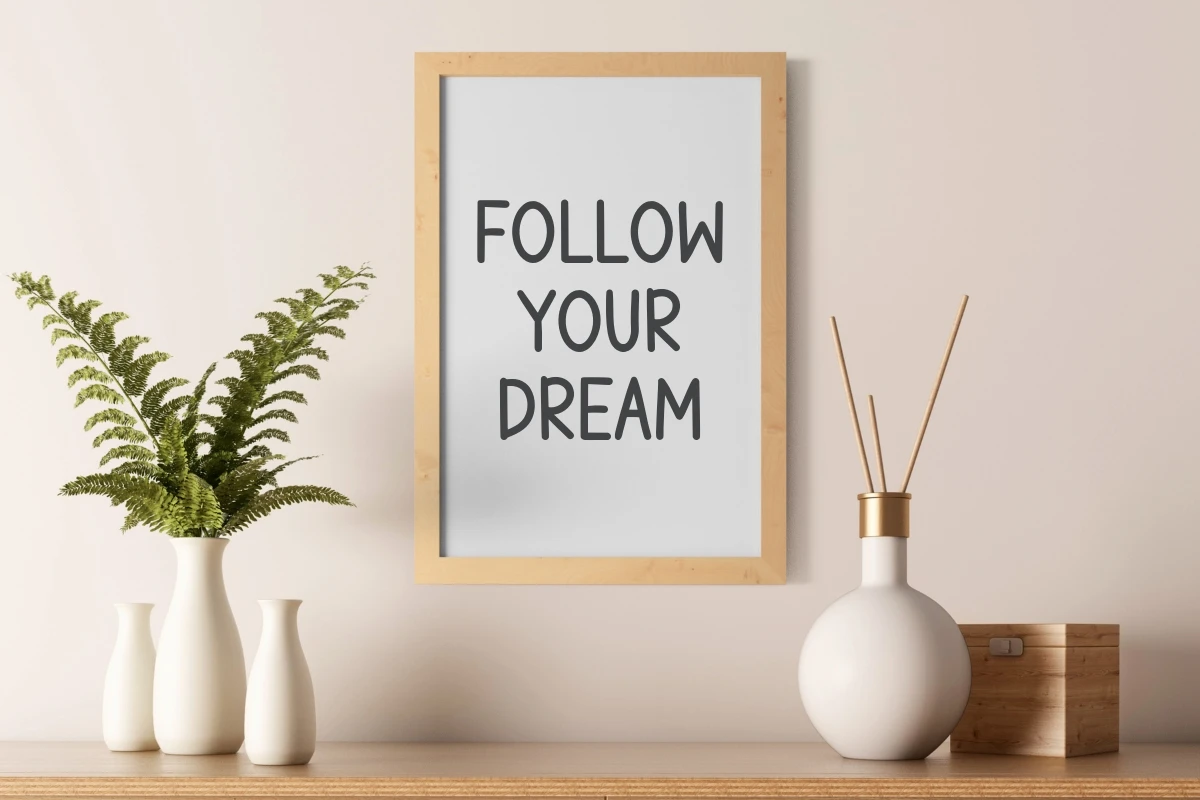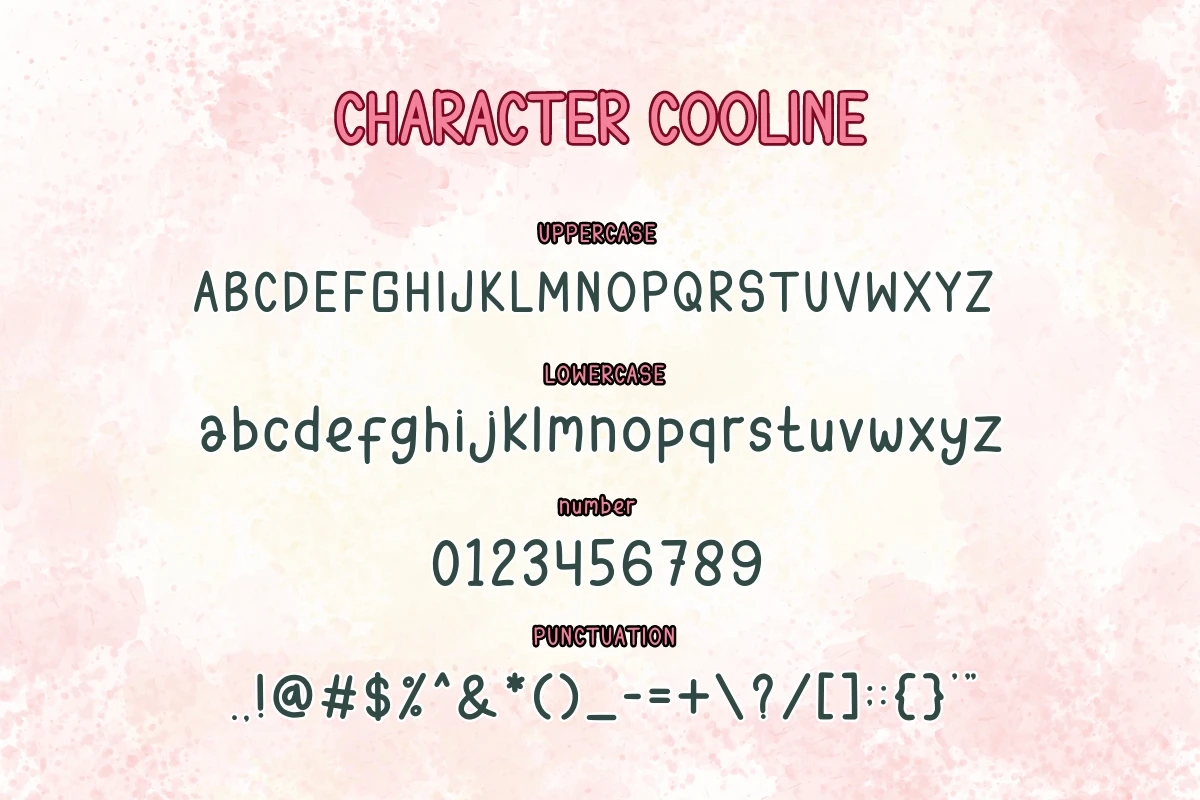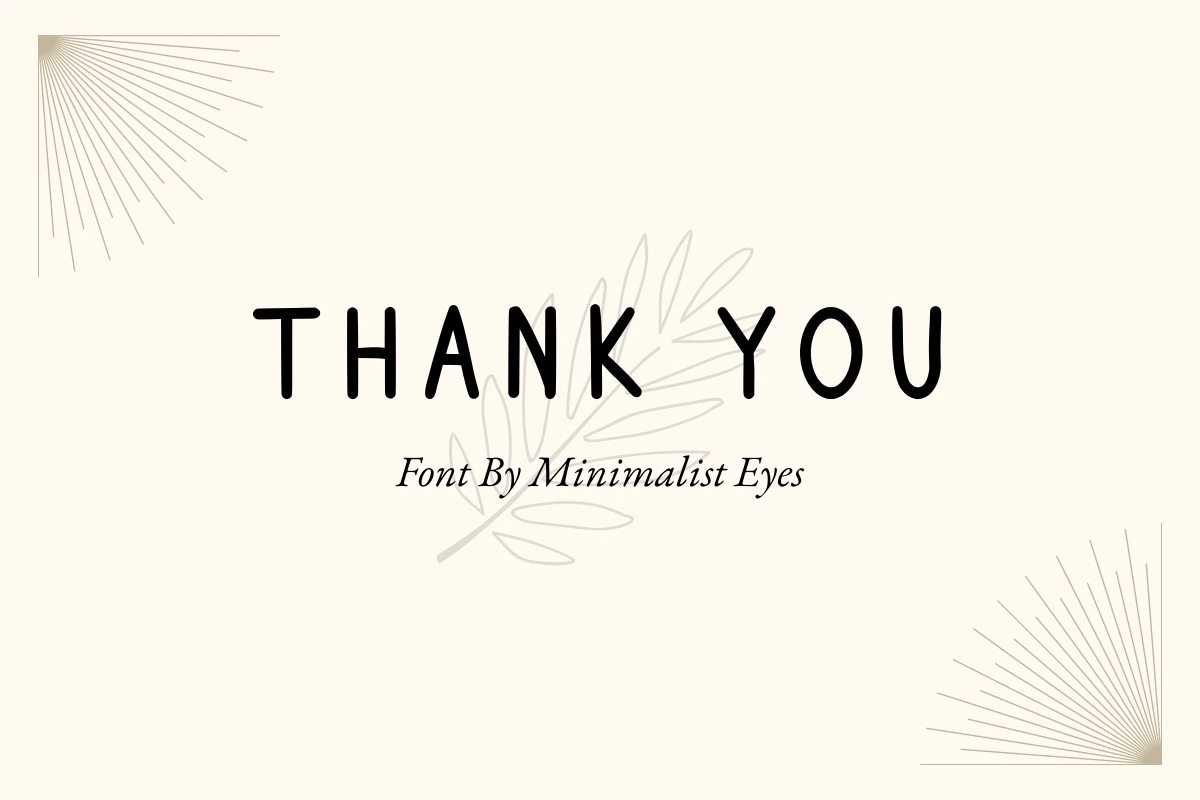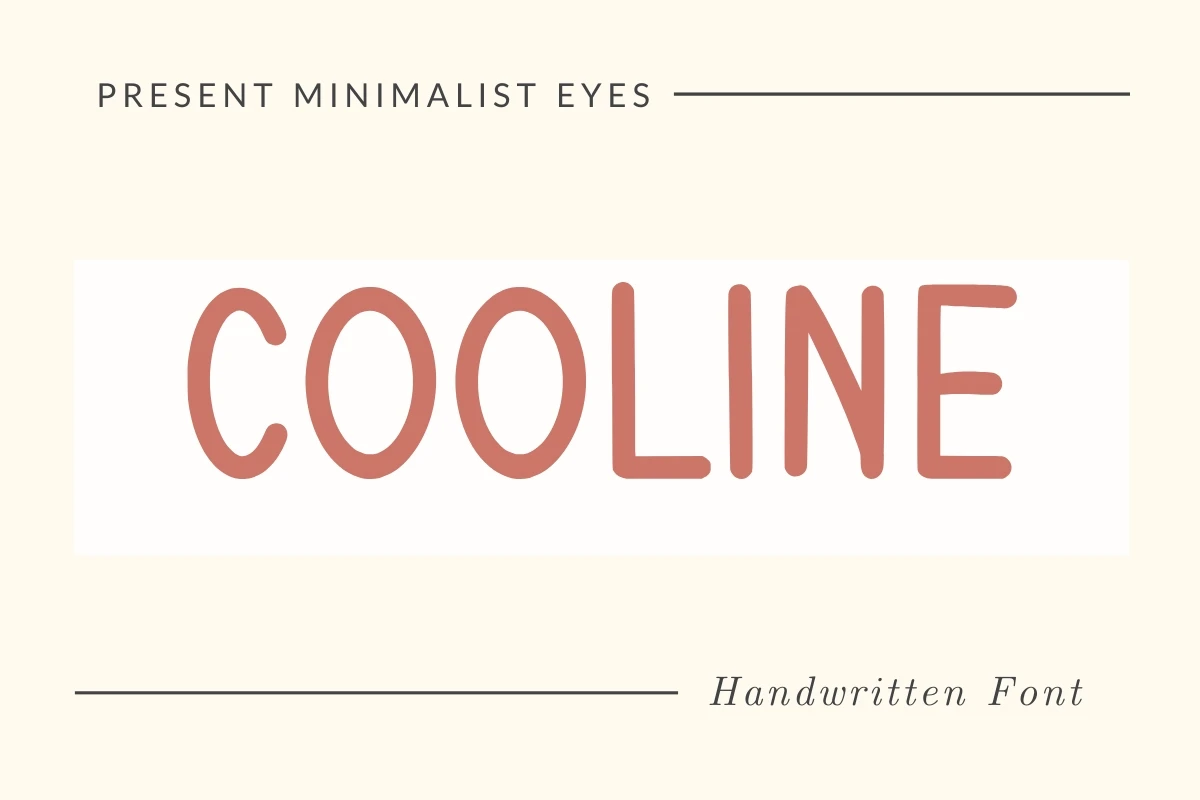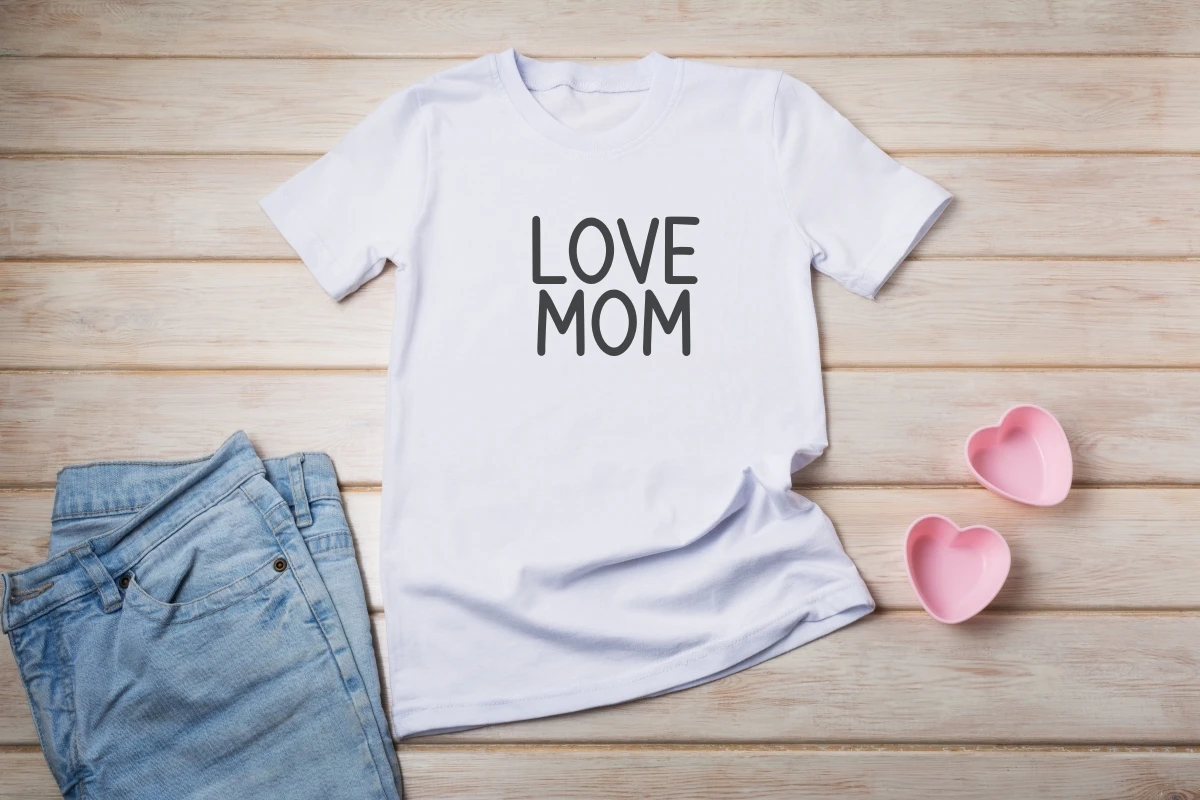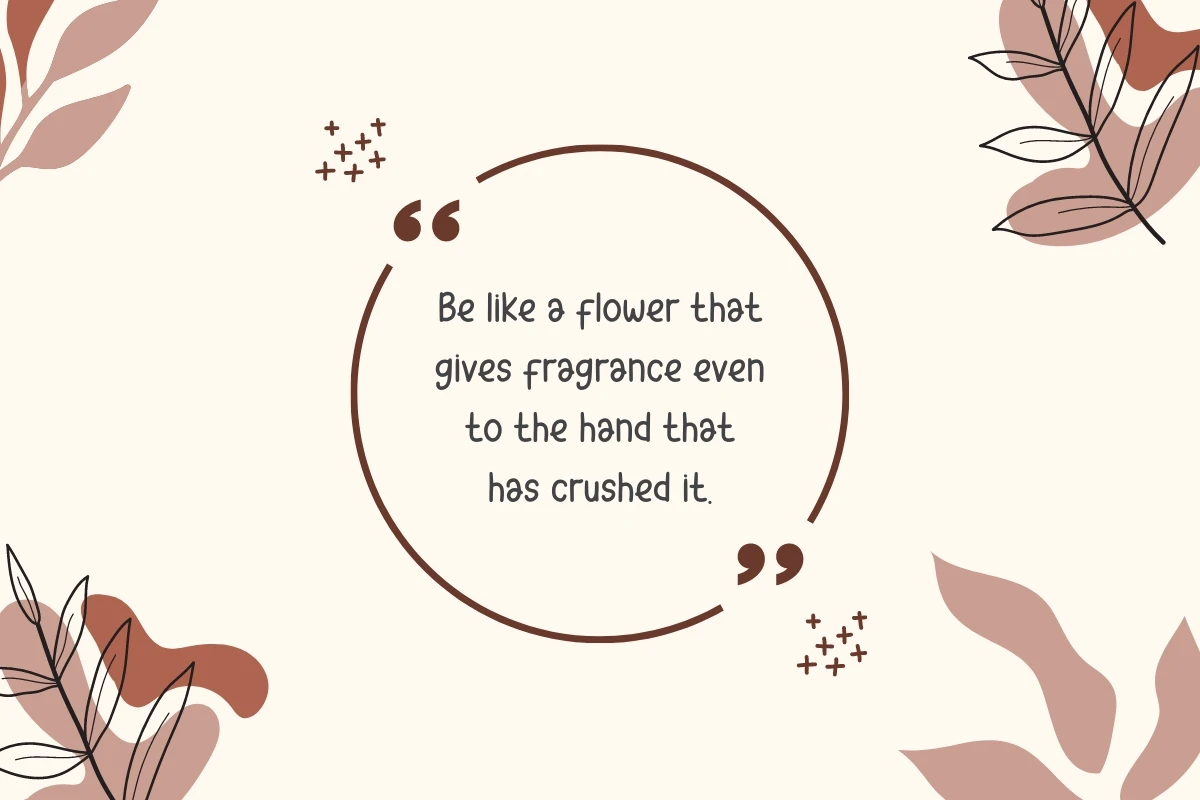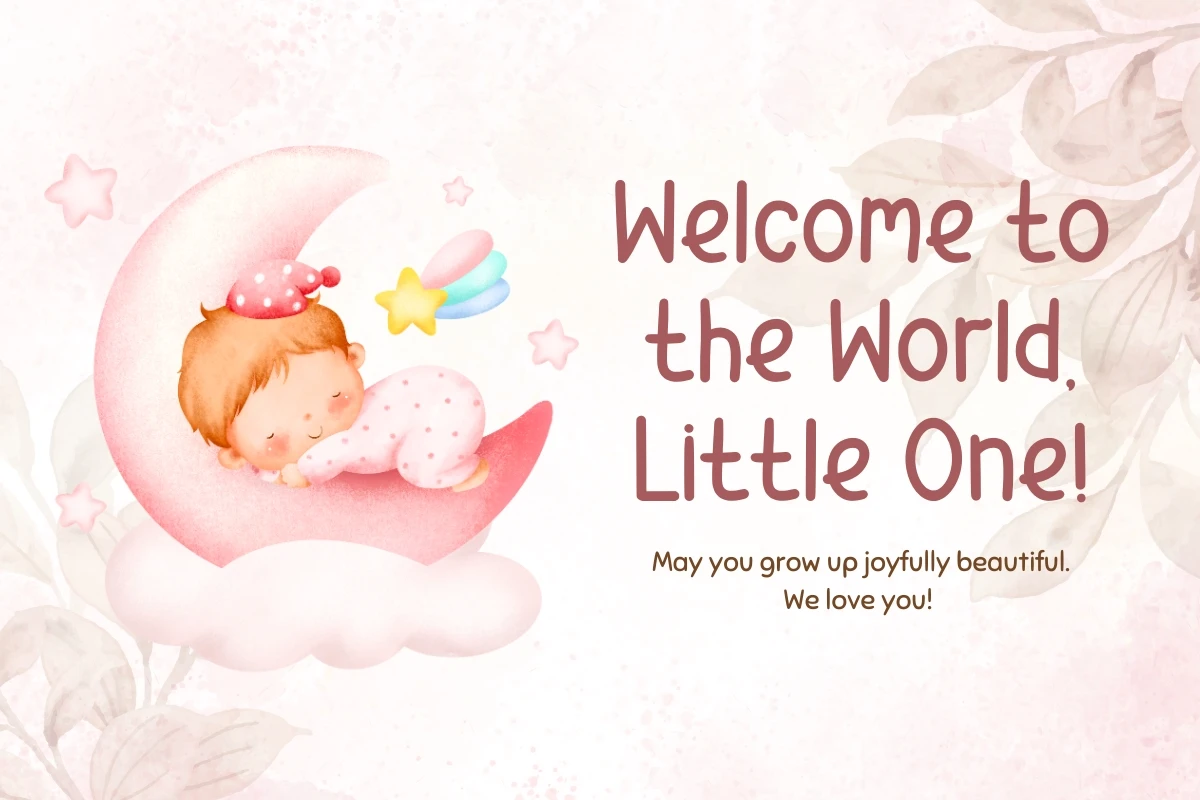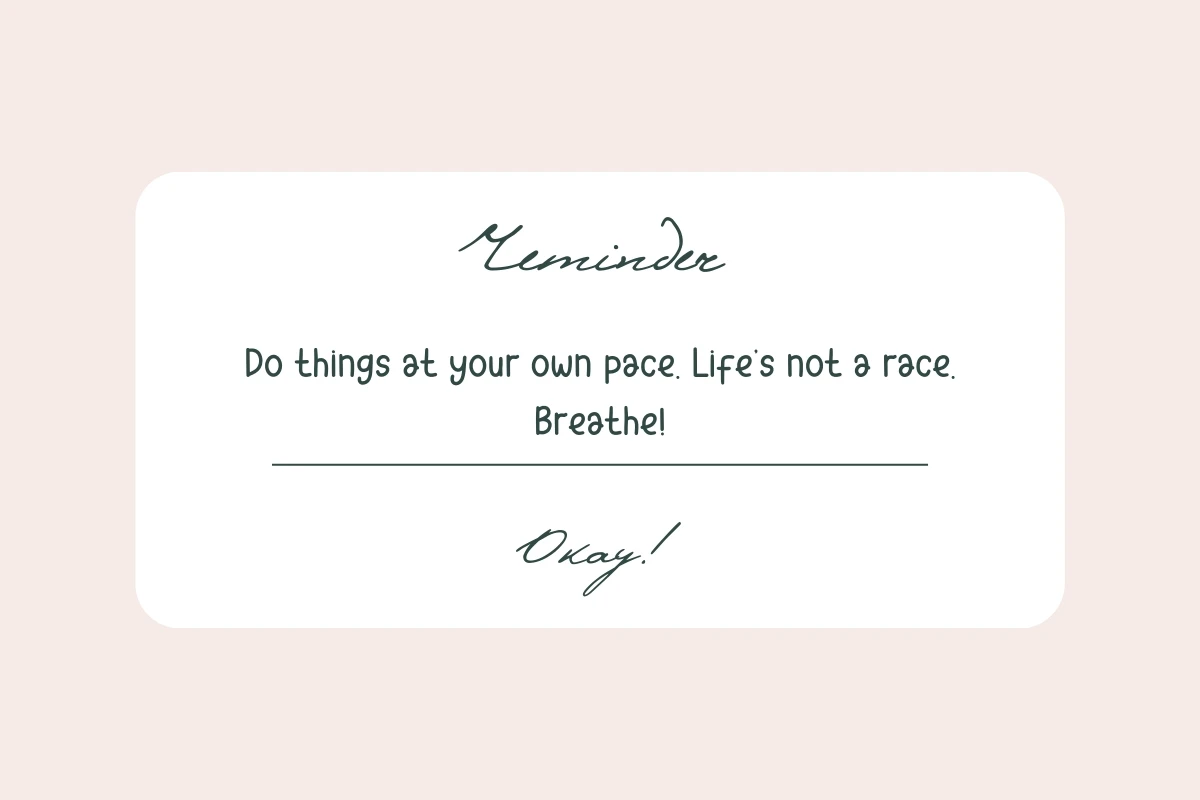
Cooline font
Cooline is a beautiful, clean handwritten font, perfect for making your designs stand out from the crowd. The characters are perfect for wall displays, wedding invitations, social media post logos, advertisements, product packaging, product design, labels, photography, watermarks, invitations, stationery and any project that requires modern typography.